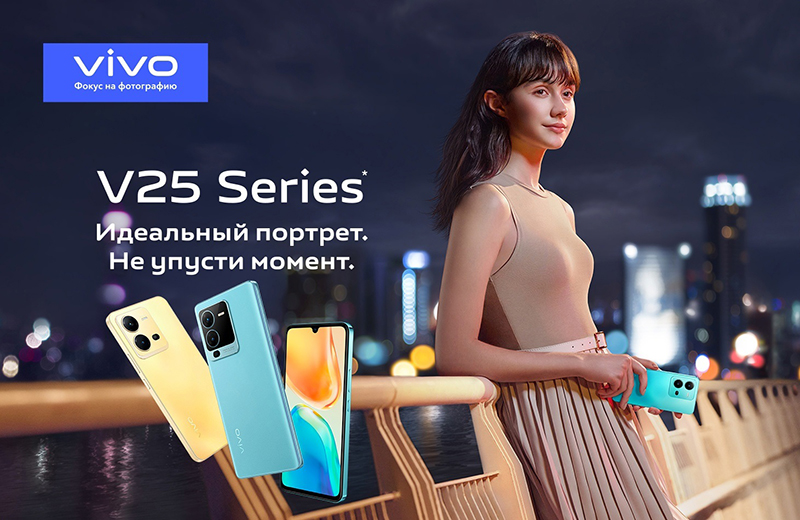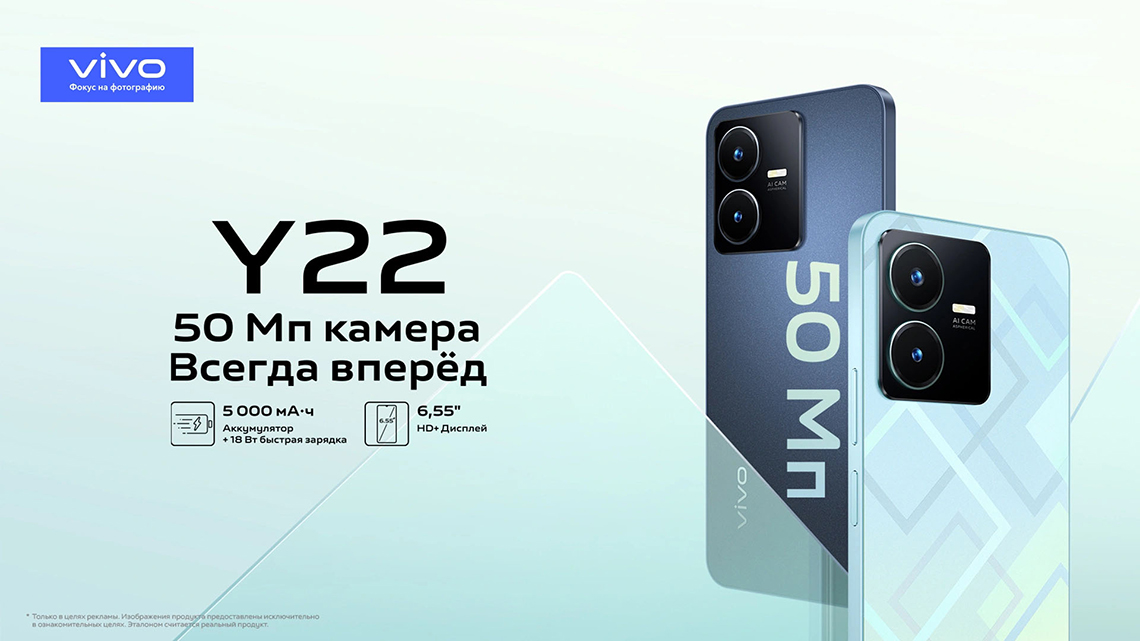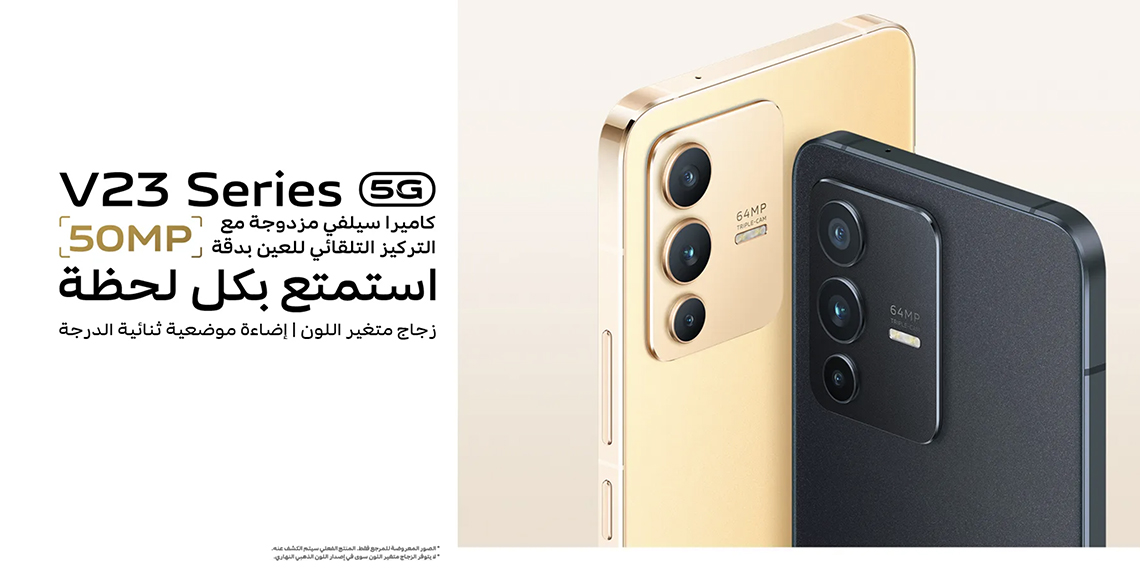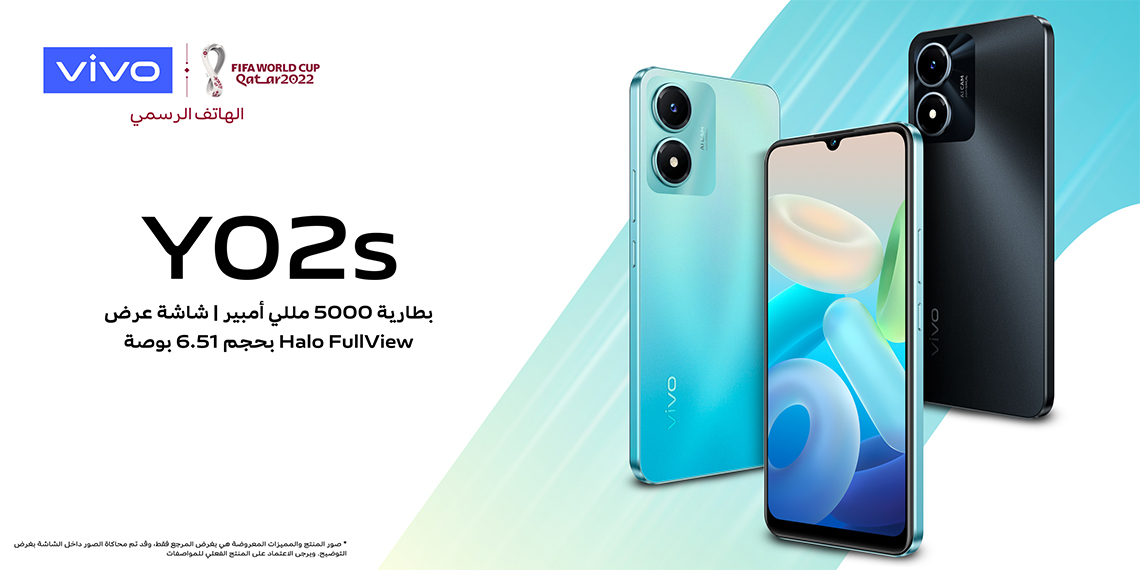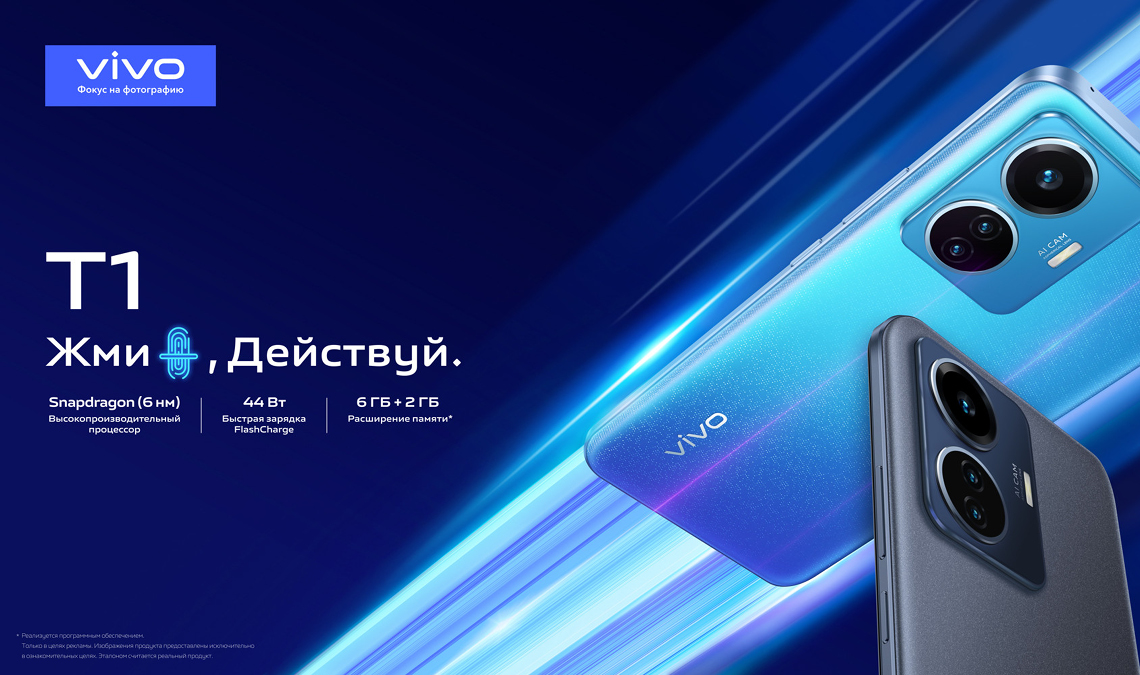
Around the world with vivo brand
TypeTogether was commissioned to create a multiscript customised update of vivo Type, adding Arabic, Cyrillic, and Greek to the Latin alphabet.
In 2019 the well-known mobile phone company vivo launched a new visual brand identity in the Chinese market. vivo Type, a font family created by Danish national treasure BO Linnemann in collaboration with FounderType, was an important part of vivo’s brand refresh. vivo Type is a unique visual language, displaying the technology and youthful fashion of the vivo brand.
With the further globalisation of vivo, they once again needed to expand the multilingual characters of vivo Type. So TypeTogether, FounderType’s professional global type design partner, designed and developed three additional custom scripts (Greek, Cyrillic, and Arabic) based on the Latin character style of vivo Type.
Through observation and research, José Scaglione, co-founder of TypeTogether, summarised the general design style and detailed design features of vivo’s Latin characters. He then led a team of global type design professionals to design the three other scripts.
The Latin characters of vivo Type are not purely geometric; they have a wide and flat structure with an open zhonggong, the Chinese equivalent of the Latin x-height. The typeface has a square shape, the apex of triangular glyphs are rounded and de-sharpened, the shoulders and feet are shaped with a special beveled contour, and the stroke endings are cut vertically, which supports the sense of technology while also incorporating humanistic elements.
The three scripts of vivo Type take Latin characters as their stylistic predecessors, and give detailed treatments to line thickness, vertex shape, stroke connection, and stroke ends. Each of the three scripts contain five weights (Light, Regular, Medium, Bold, and Heavy) to better match the needs of complex information design.
The Greek characters of vivo Type, designed by Kostas Bartsokas, continue the “best of both worlds” Latin character style. The typeface adopts a wide body proportion, and the counter is full and open. By integrating the characteristics of Latin into Greek, a consistent visual experience is maintained.
In terms of its details, vivo Type Greek adopts the same horizontal stroke design and vertical cut approach as the Latin, with the straight line cut at the end of Latin characters serving as the inspiration for the instroke and outstroke of Greek characters. At the same time, vivo Type Greek retains the Latin character’s diagonal top connecting point approach, so these humanistic details tie together the visual commonality between Greek and Latin.
The Cyrillic characters, designed by Vera Evstafieva, also follow the Latin character features with both technological and humanistic attributes: the two are completely consistent in cap height, x-height, ascender and descender length, and overshoots.
In addition to matching the size of the Latin characters, the Cyrillic also expresses the visual style characteristics of vivo Type in many details: the horizontal curve of the characters are flattened, and the word shape presents as flat and geometric; joins between a curve and stem adopt appropriate contrast to prevent strokes from being too blobby, which helps readability; and the shape of the serif at the shoulder and foot of Cyrillic characters is the same as that of Latin characters.
In the design of vivo Type Arabic, TypeTogether designer Azza Alameddine found that the Arabic typeface that best matches the Latin is Naskh, which has a simple structure, wide body proportions, no overt changes in line thickness, and the stroke tension follows the squarish structure of the brand’s original character set.
For instance, vivo Type Arabic’s letter alef is straight, with no change in thickness, and the corners are cut in a crisp horizontal way. The letter waw changes the traditional triangular counter to a square. The letter hah imitates the structure of Latin characters, with a more rectangular main body rather than the traditional circular structure, and its dot shape is the same as found in the Latin.
Vivo Type has become a customised typeface family with five different scripts: Arabic, Chinese, Cyrillic, Greek, and Latin. Character matching and style that is echoed across scripts ensure the wide applicability of vivo Type in different countries and regions, with a long lifespan and far-reaching influence. The expanded vivo Type shows the combination of technology and human care, helping the vivo global brand to connect people through the technology they use every day.